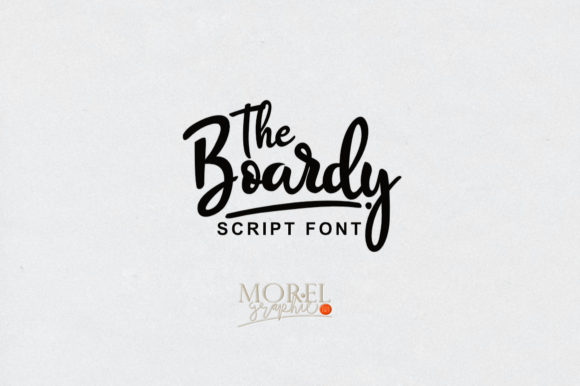
Step into a world of artistic expression with The Boardy Font, a flowing handwritten masterpiece that will captivate your creative soul. Designed with an elegant touch, this script font embodies the essence of timeless beauty, promising to elevate your projects to new heights of visual artistry.
Immerse yourself in the world of tattoo art, where The Boardy Font reigns supreme. Its intricate strokes and graceful curves dance across the page, inviting you to explore the depths of your imagination. From delicate script to bold, sweeping statements, this font will transform your words into captivating works of art.
Unleash your creativity and let your designs take center stage. The Boardy Font's distinct personality adds a touch of elegance and sophistication to any project, whether you're crafting logos, branding materials, invitations, or simply expressing your artistic vision.
With its incredibly distinct style, The Boardy Font stands out from the crowd. Its versatility extends from elegant wedding invitations to eye-catching social media posts, ensuring that your designs leave a lasting impression.
Embrace the beauty of handwritten artistry and make The Boardy Font your go-to choice for creating designs that speak to the heart. Its timeless appeal will ensure that your creations remain relevant and cherished for years to come.